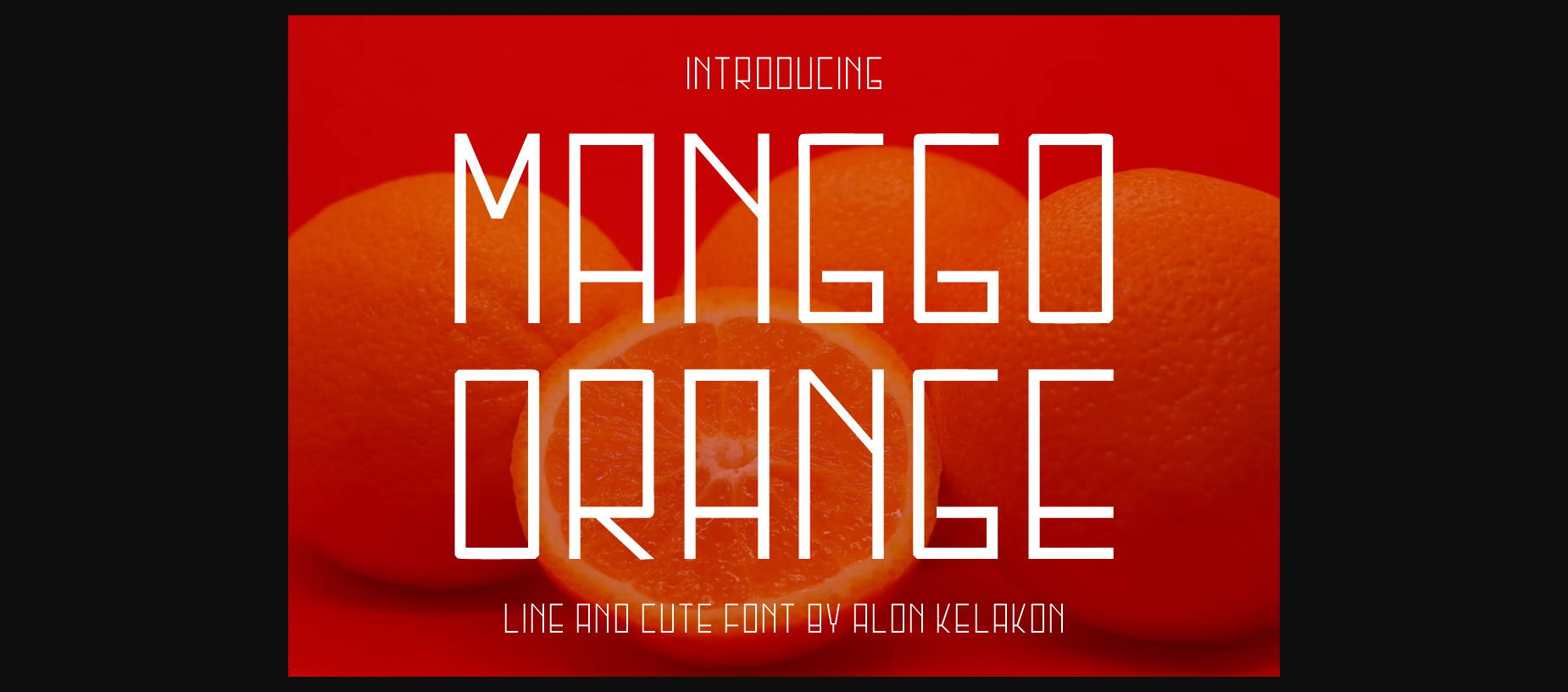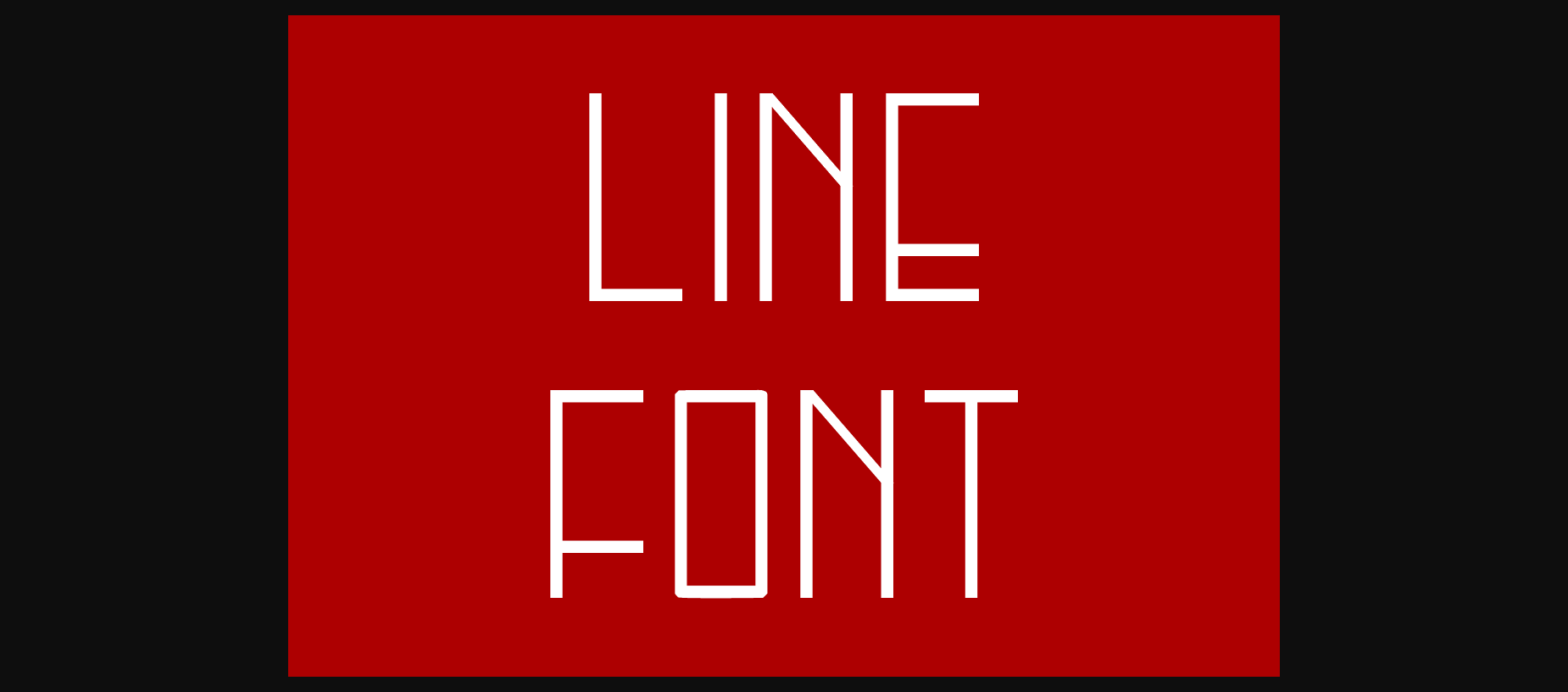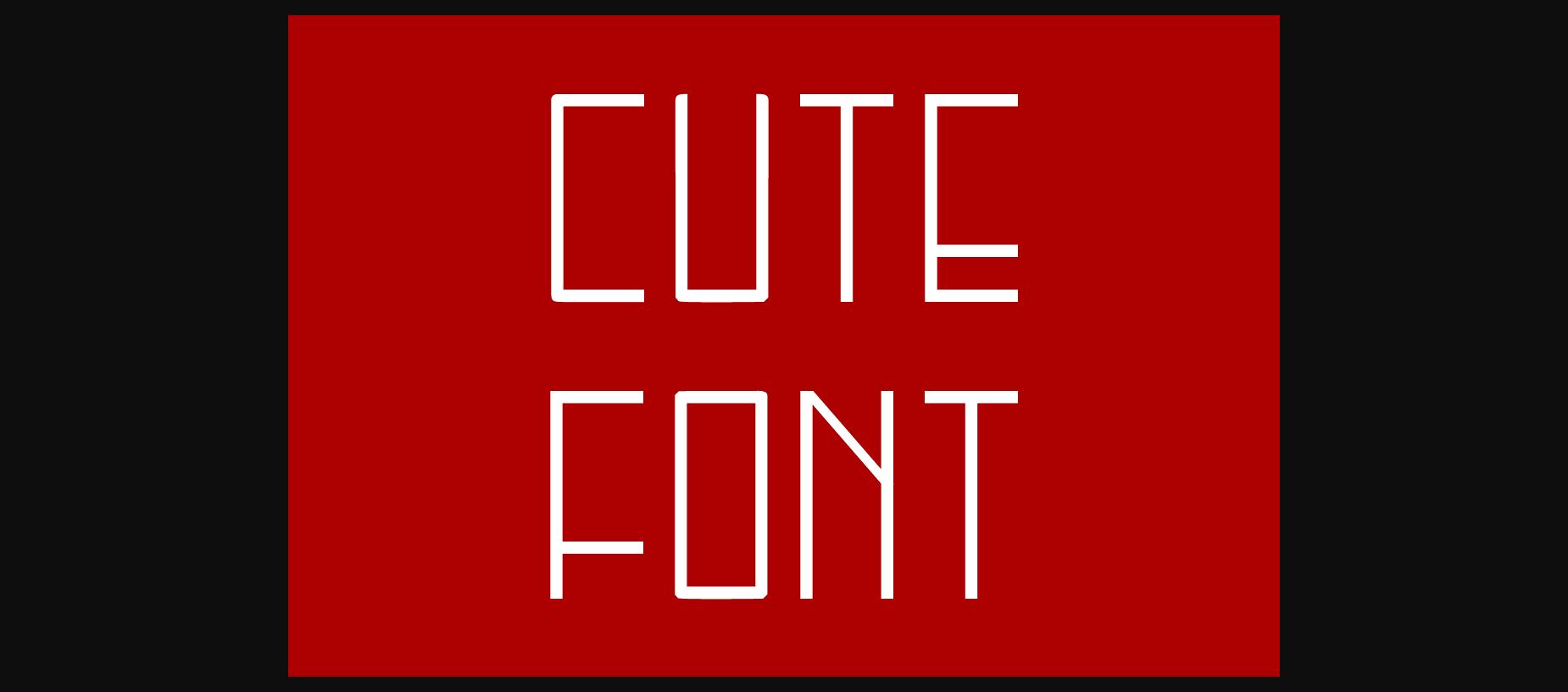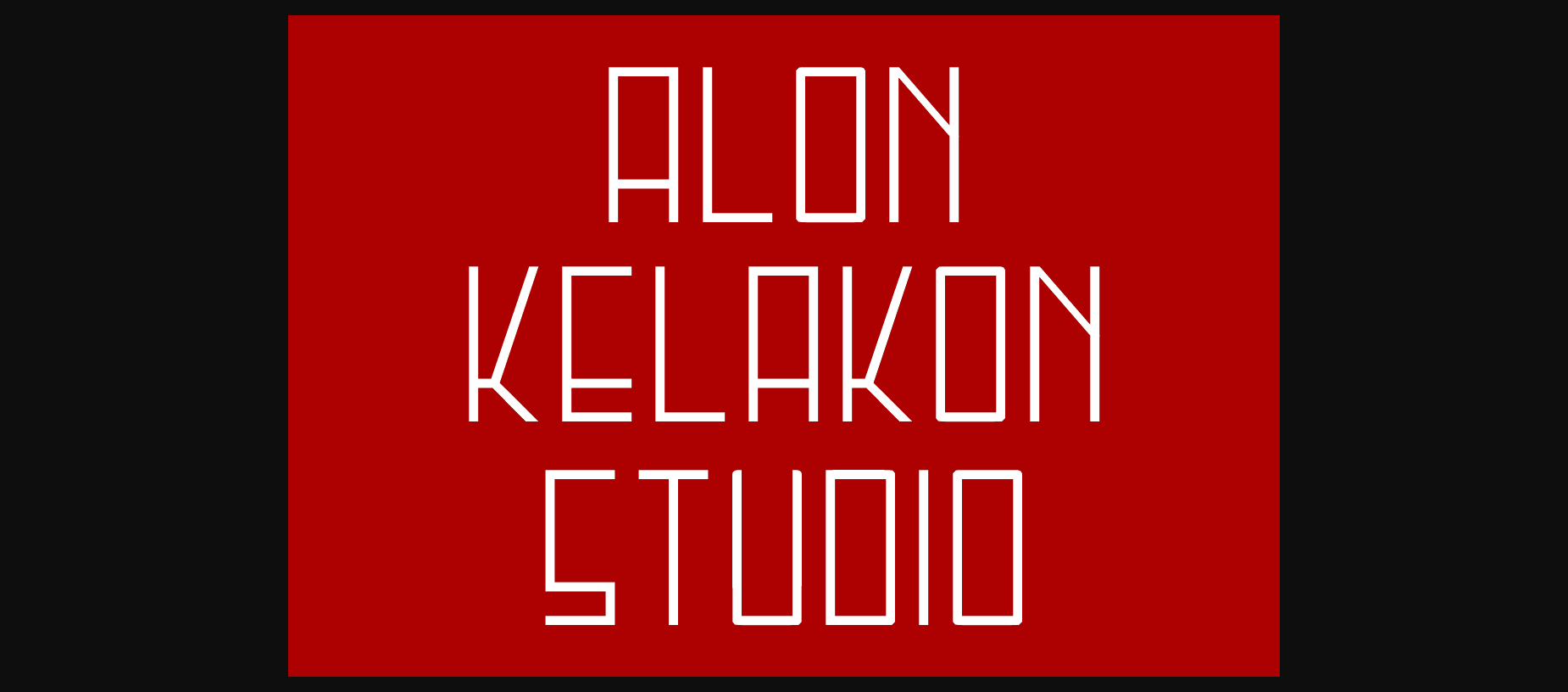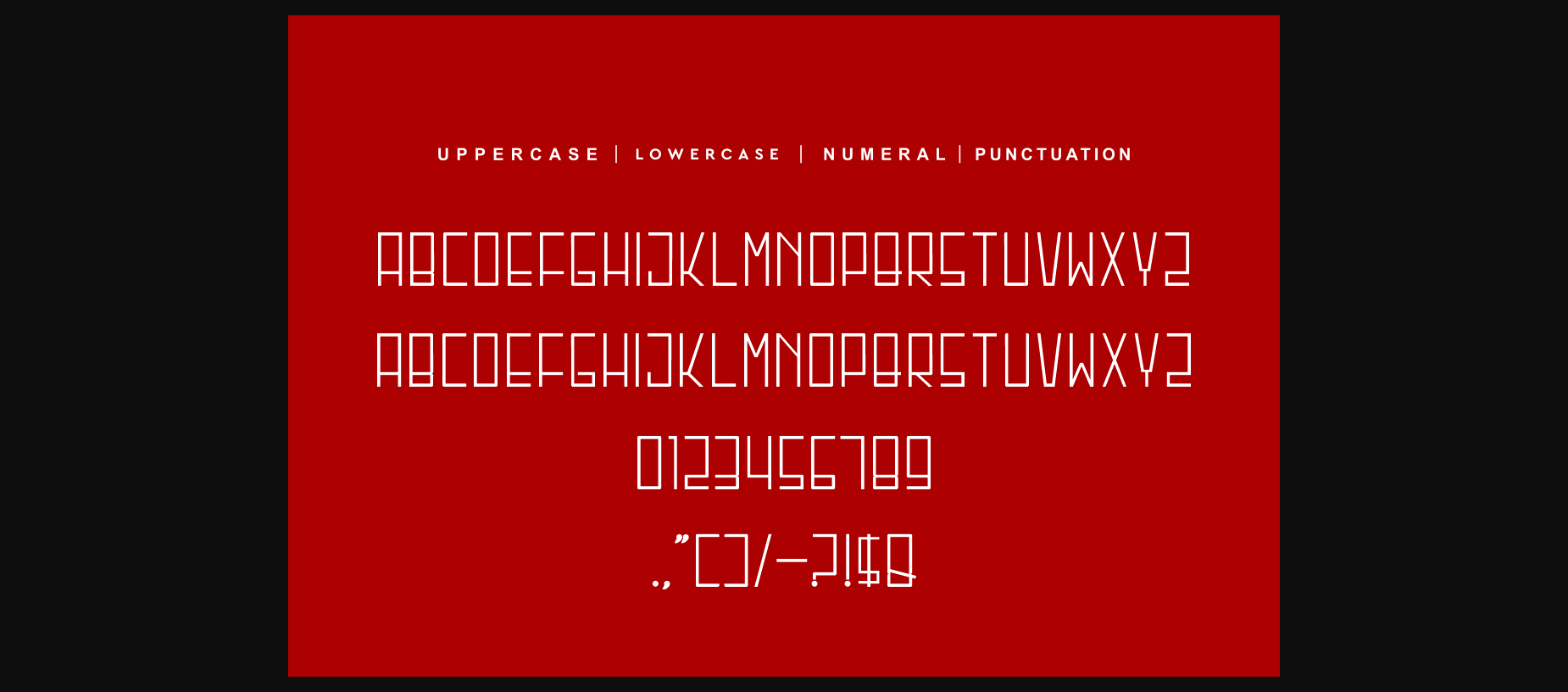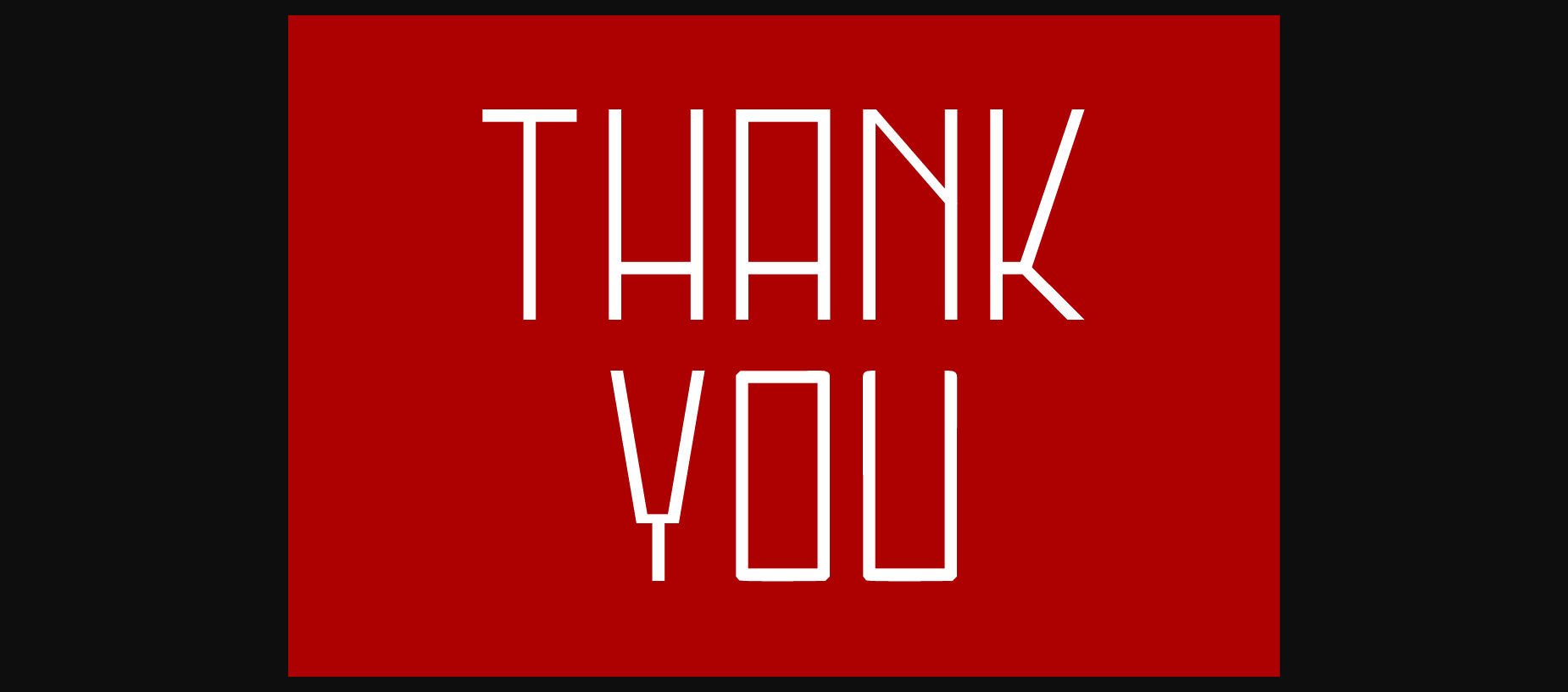
About Manggo Orange Font
Manggo Orange is a sweet and delicate sans serif font. Dainty and joyful, this font will be ideal for writing wedding invitations, cards or any other design that may need a romantic, personalized touch!